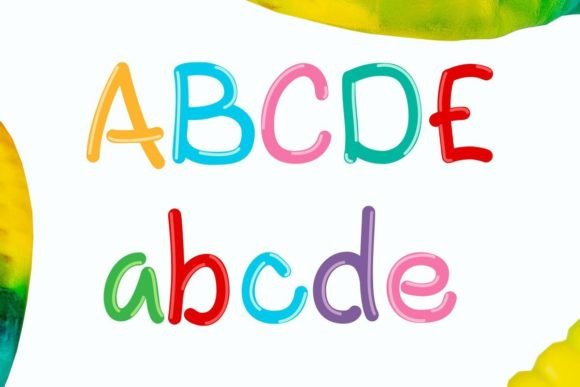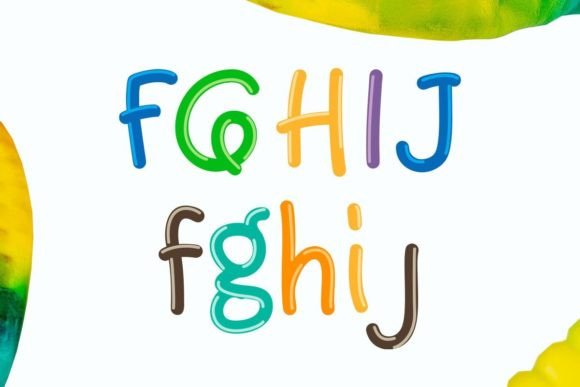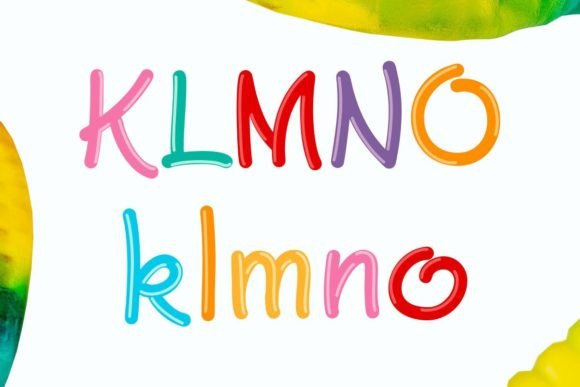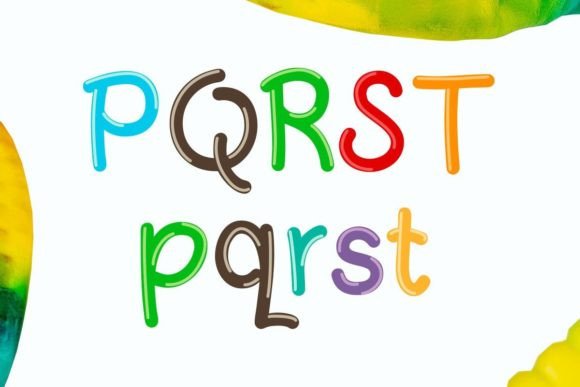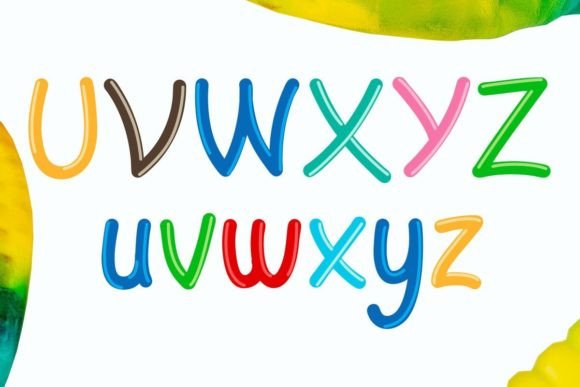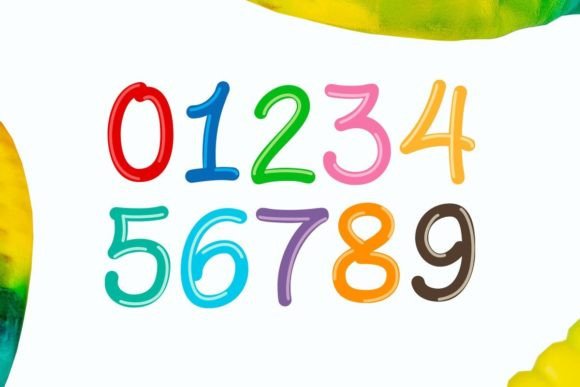
Introduction to Hagen Kids Jellystick Font
Hagen Kids Jellystick is a cute, sweet, playful display color font.
This jelly font pattern is suitable for kids or school projects and its bright and warm color palette will bring authenticity and joy to your projects Note.
Key Features of Hagen Kids Jellystick Font